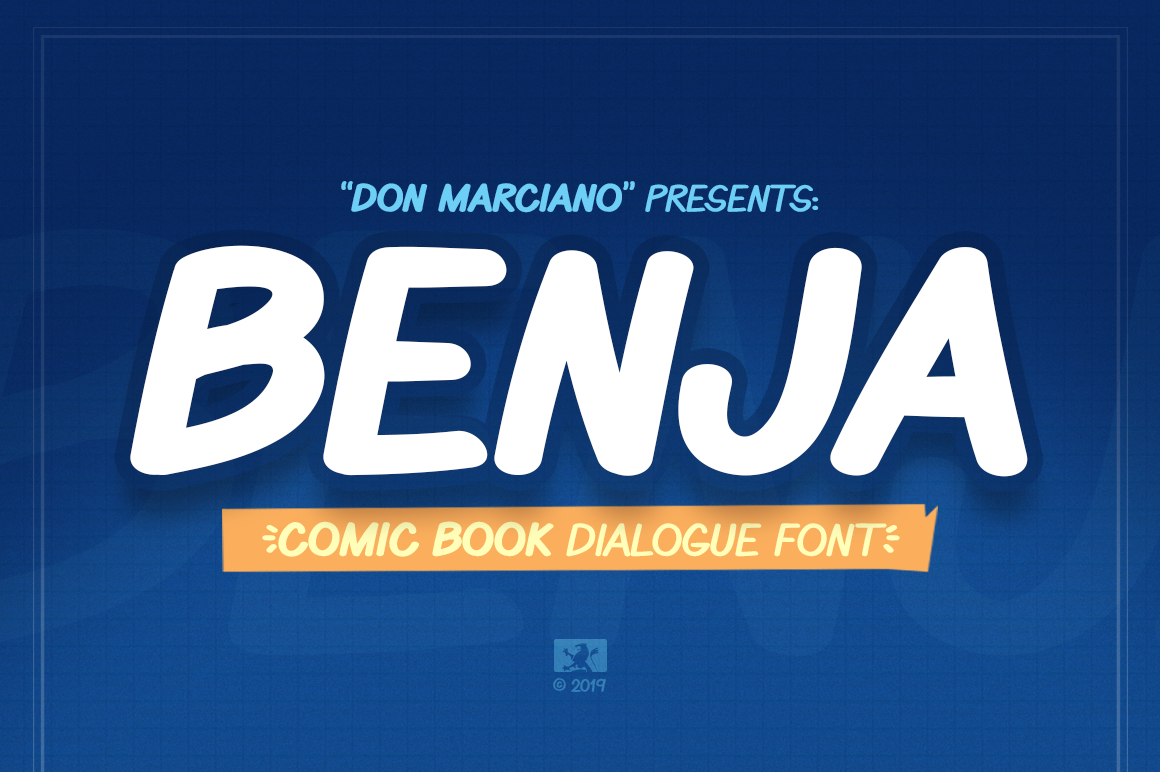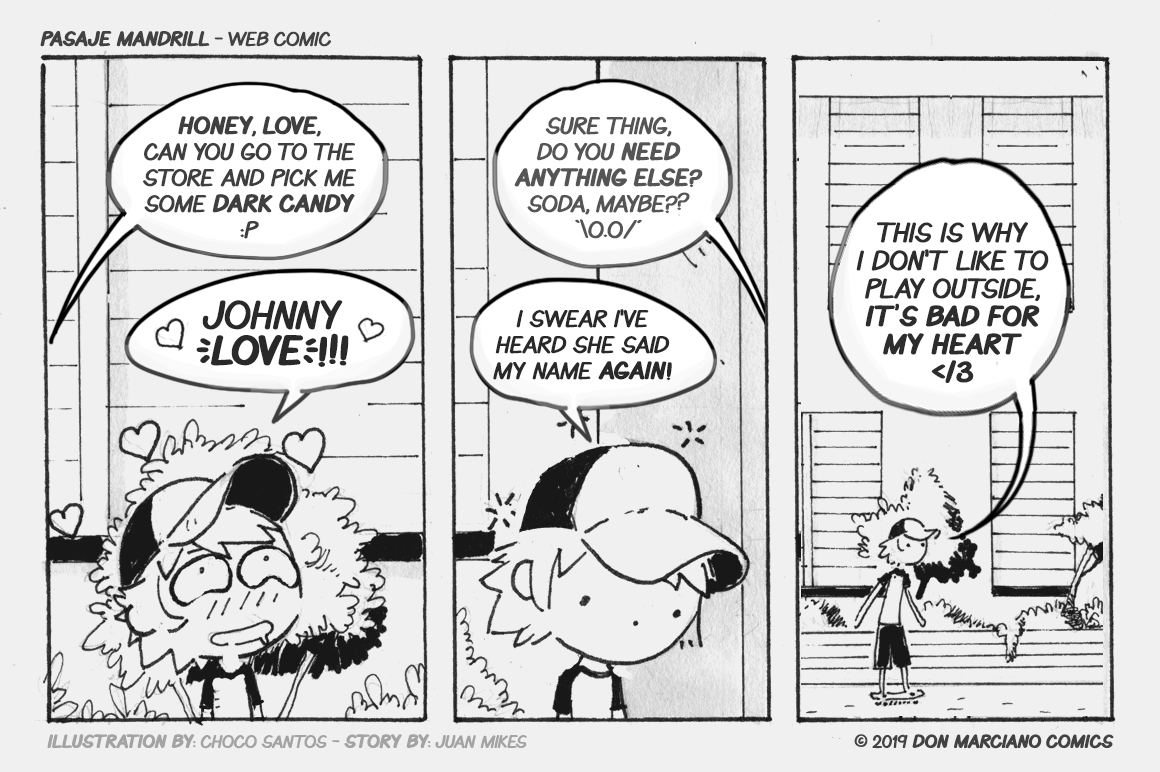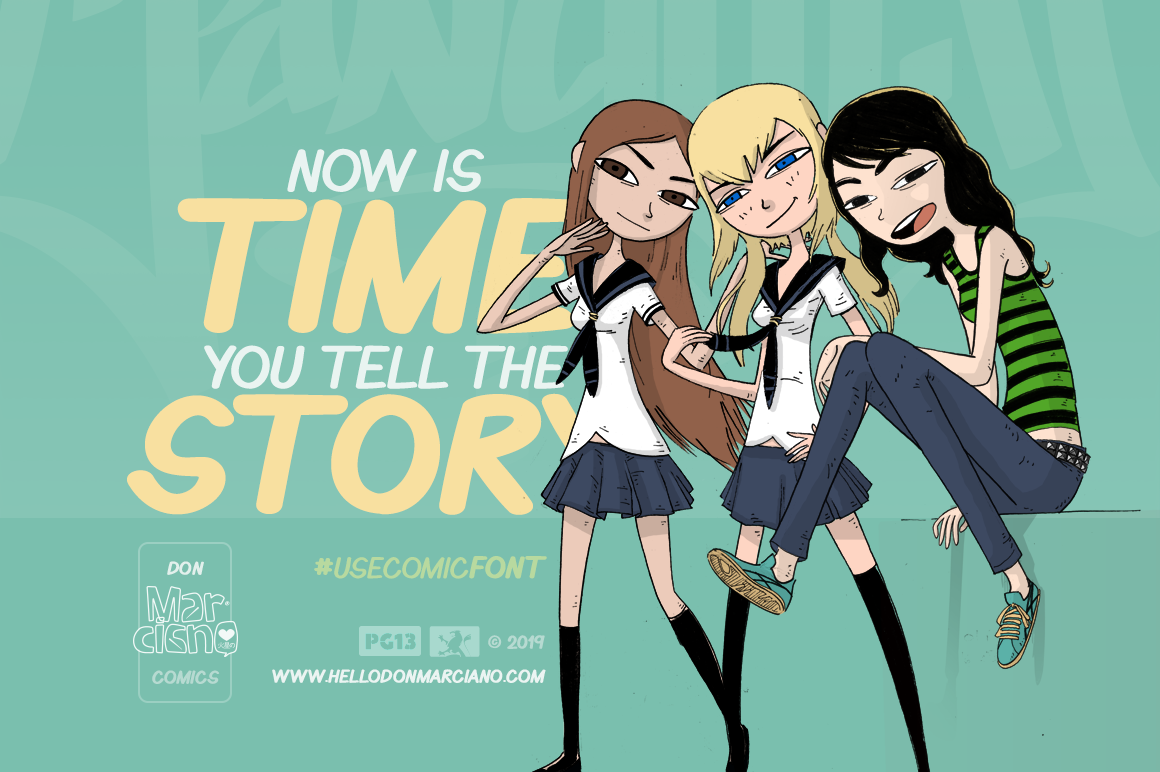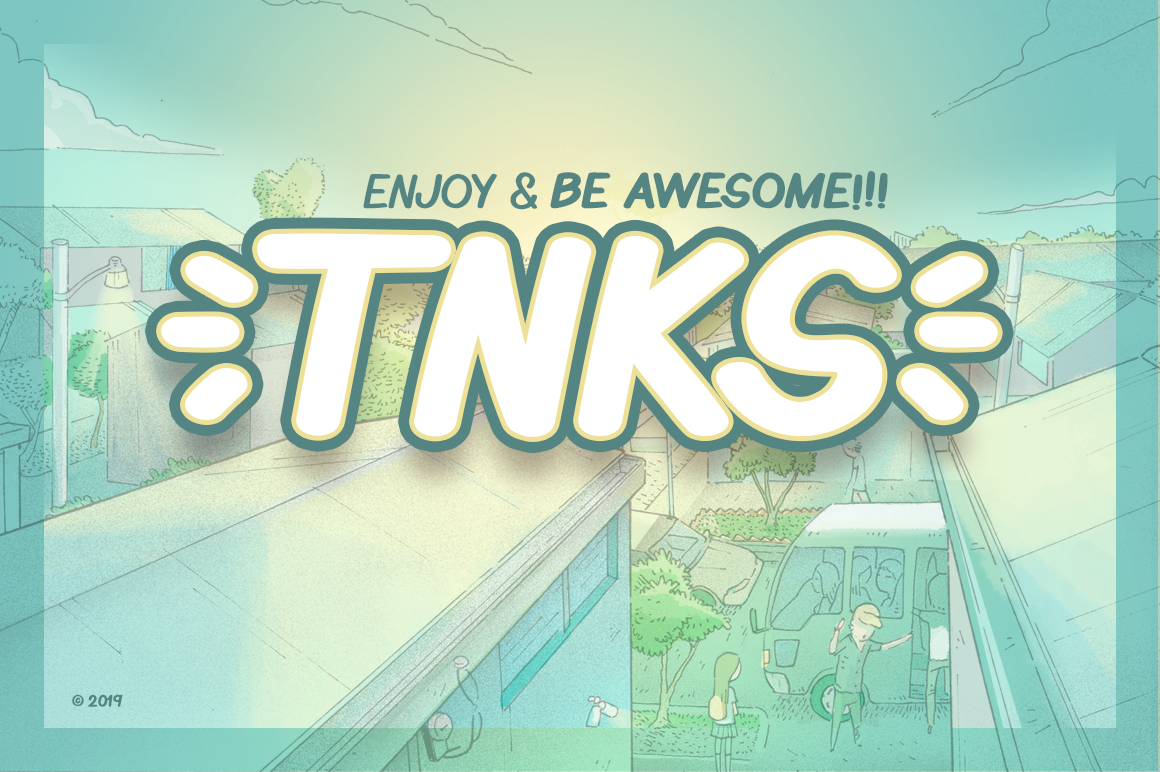
Benja Comic Book Font
Benja is a comic book dialogue font, design for my web comic series "Pasaje Mandrill", made with much love, the font comes in 2 weights, regular and bold, both in .OTF format. A total of 222 glyphs + includes some international characters for multi language support.